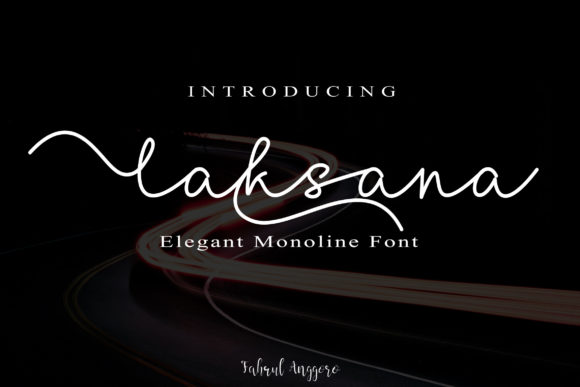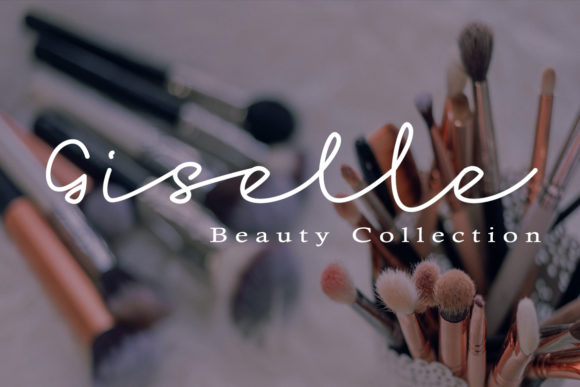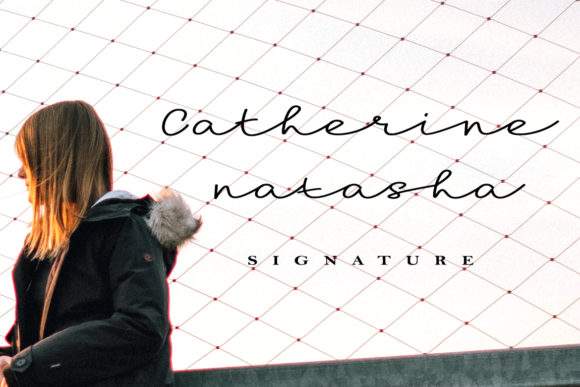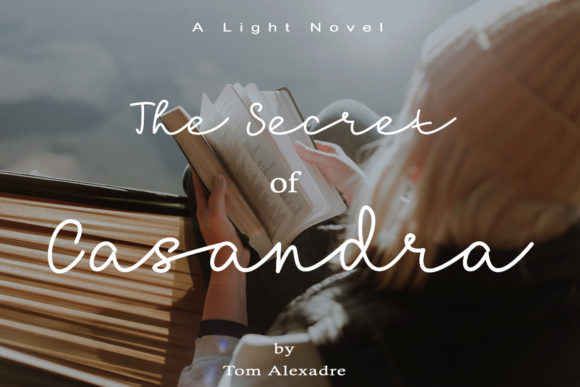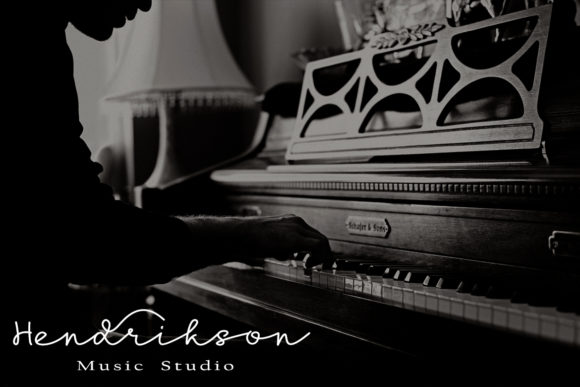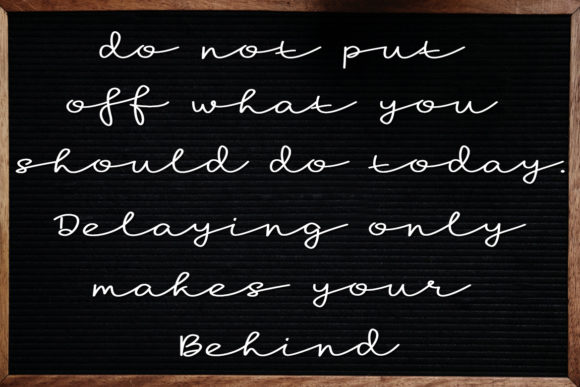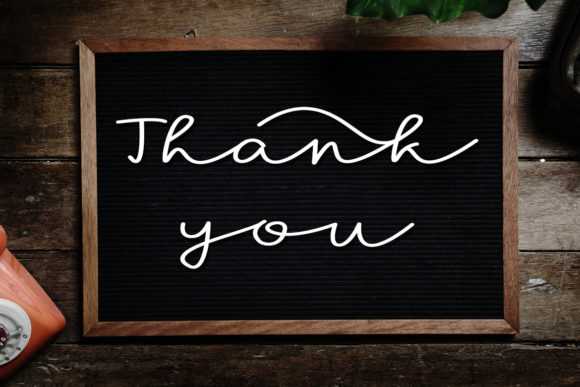
Laksana Font
About Laksana Font
The Laksana is a monoline signature font. It has an amazing handwritten look which will add a natural feel to your designs.
It’s perfect for signatures, branding, wedding invitations, watermarks, business cards, logos, magazines, quotes, movie titles, posters and much more.